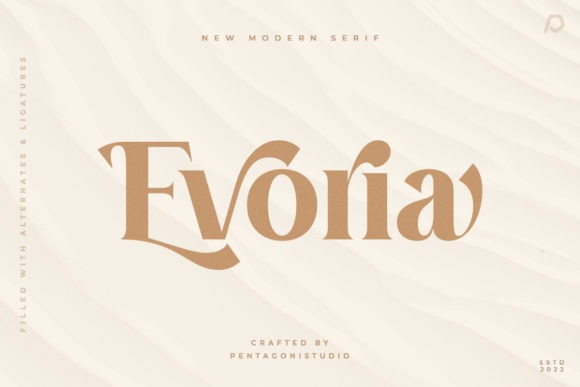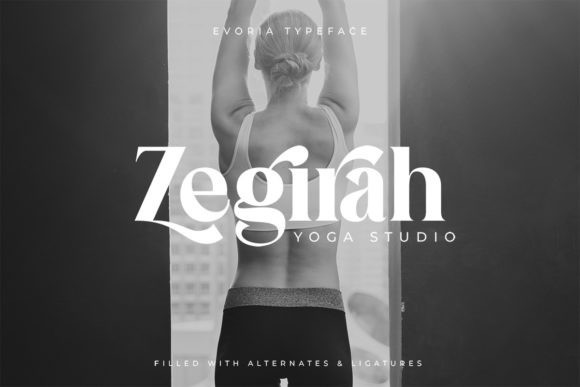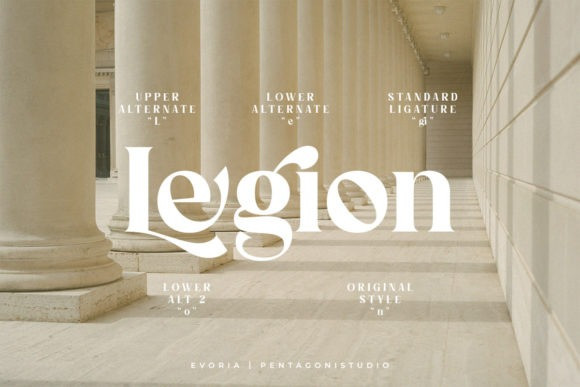
Evoria Font
Evoria is a stylish and bold serif font. It is perfect for product packaging, branding project, magazine covers, social media, wedding, or just used to express words above the background. Evoria is PUA encoded which means you can access all of the glyphs and swashes with ease!